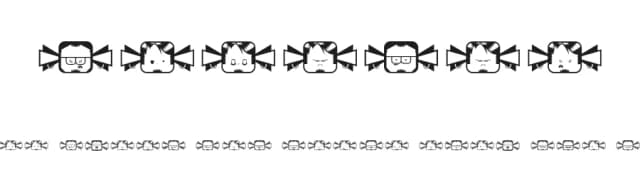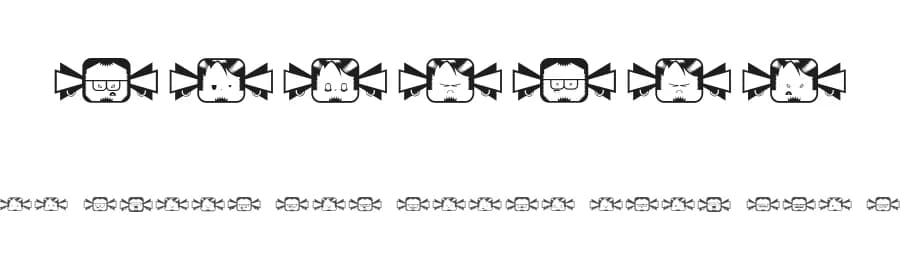
About Negobom Font
This type was made for identification of the members of coletivo NEGOBOM.
The two characters who appear on the illustrations are me, Felipe Caroé, and Caio Preá, members of the coletivo NEGOBOM.
The illustrations are based in a popular candy here in Brazil: It's a sugar sweet made of bananas.
Negobom Font